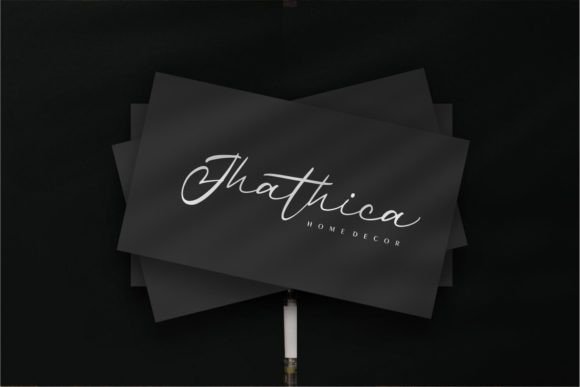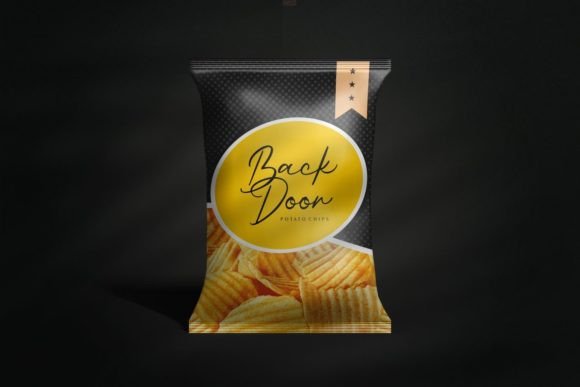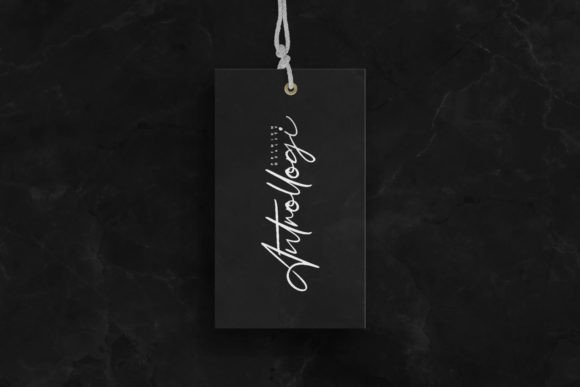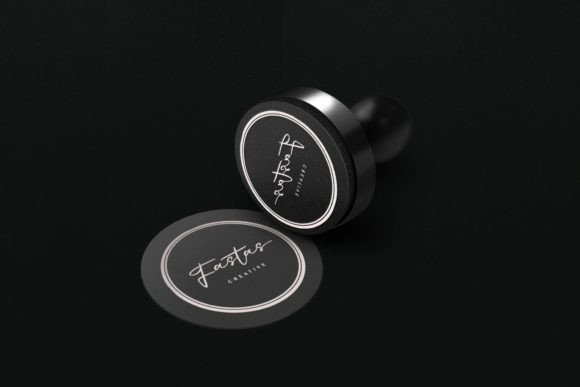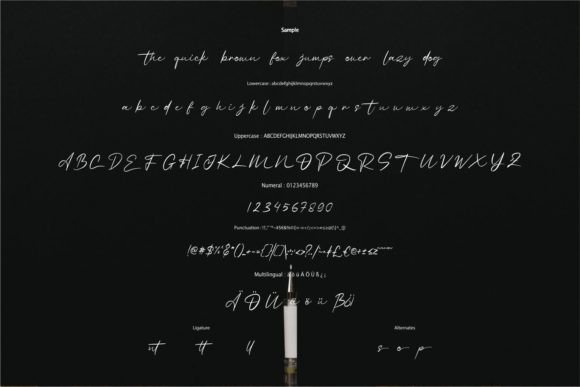
Introduction to Presttinos Signature Font Font
Fonts play a crucial role in design, and the Presttinos Signature Font font is a typeface that brings both character and versatility to any project. Whether you’re working on a branding project, a website, or a print design, the Presttinos Signature Font font offers a unique style that can elevate your work.
Presttinos Signature is a modern script font with a calligraphy style.
It will look so beautiful on invitations like greeting cards, branding materials, business cards, quotes, posters, and more .
Key Features of Presttinos Signature Font Font
Why Choose Presttinos Signature Font Font?
The Presttinos Signature Font font is more than just a typeface – it’s a design tool that helps you communicate your message with style and clarity. Its unique character set and versatile design make it suitable for a wide range of applications, from elegant invitations to bold headlines.
With its carefully crafted letterforms and balanced proportions, the Presttinos Signature Font font ensures readability and visual appeal across all mediums.
What makes Presttinos Signature Font font special?
The Presttinos Signature Font font stands out with its unique design, exceptional readability, and versatility across various design applications.